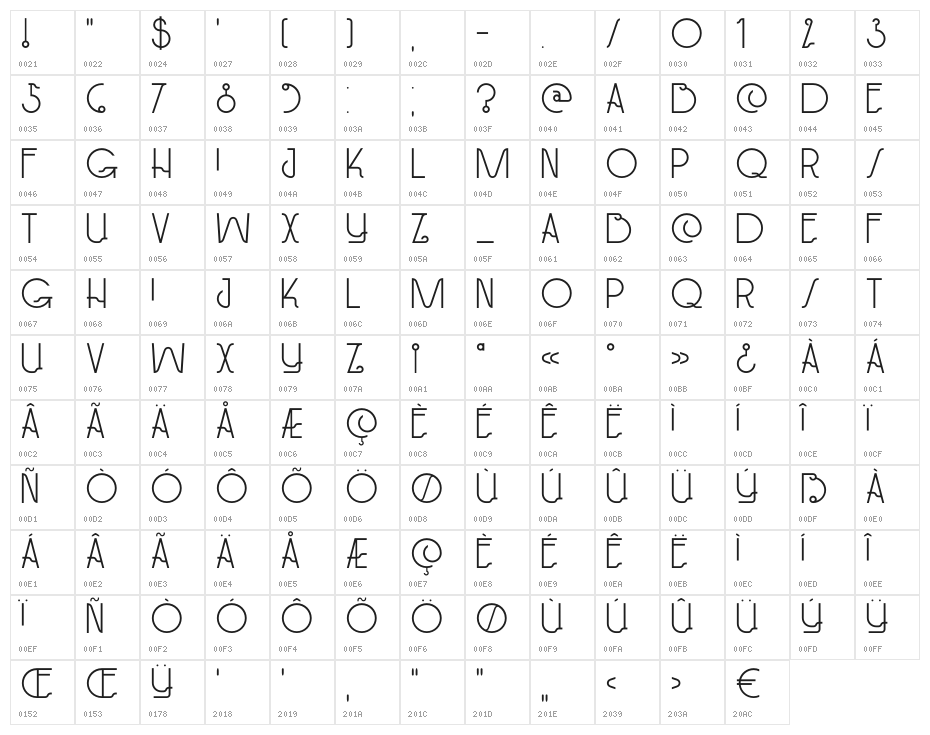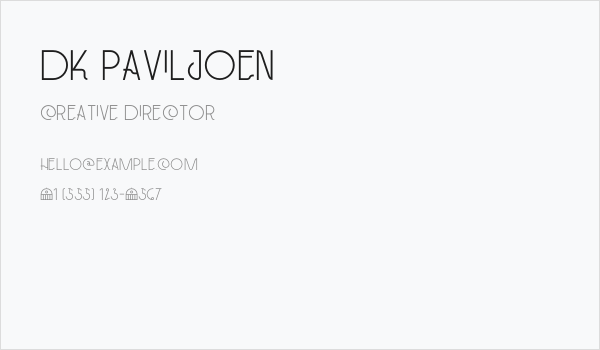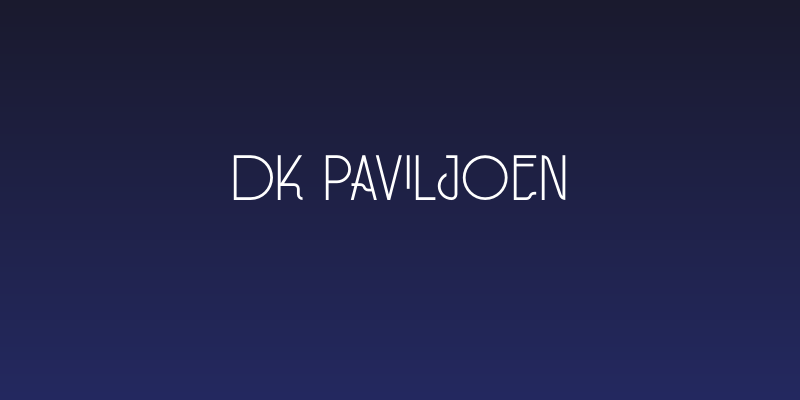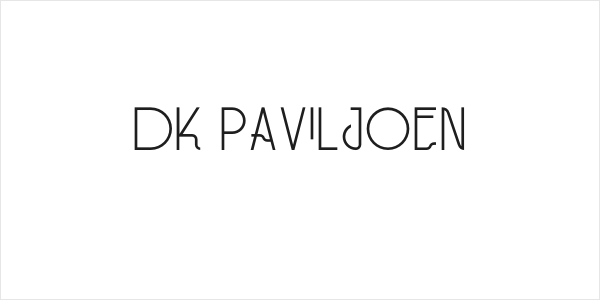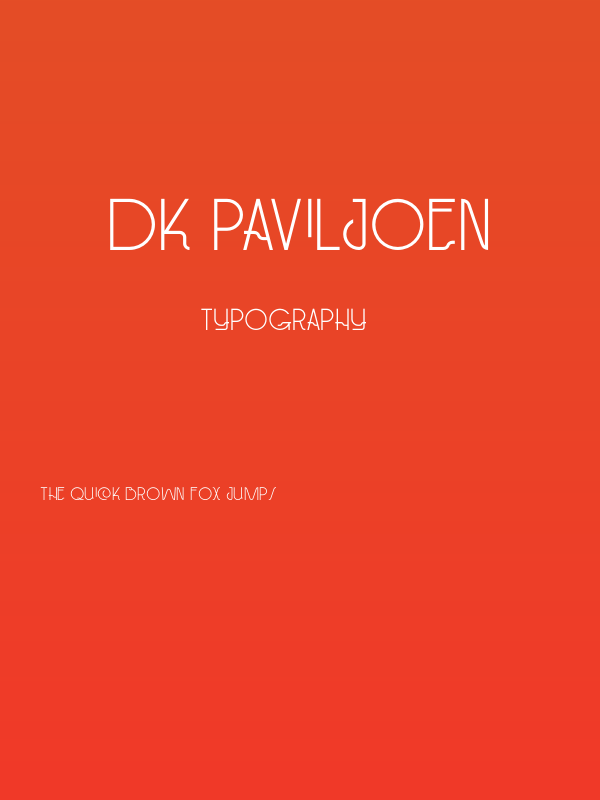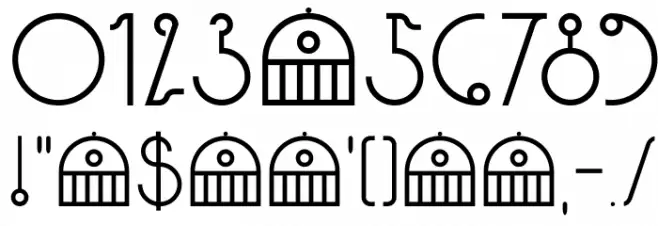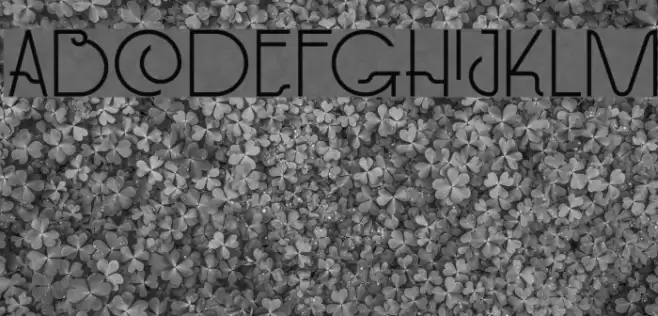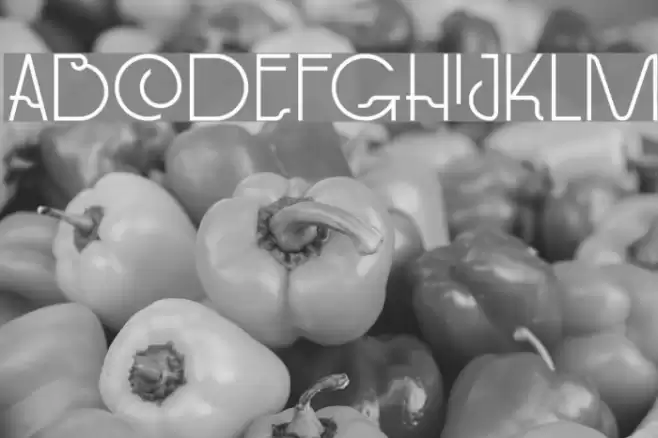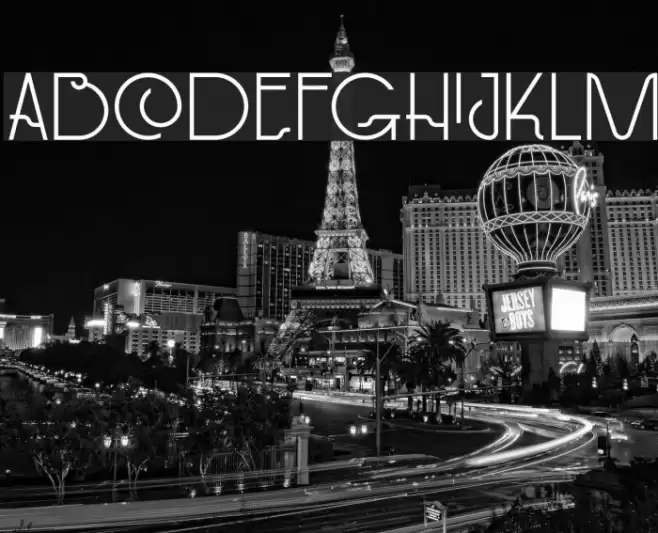
DK Paviljoen Font
DK Paviljoen Description
This font features a unique and modern design with a geometric and futuristic aesthetic. The characters are composed of clean lines and circular elements, creating a sense of movement and innovation. The uppercase and lowercase letters share a consistent style, with some characters incorporating playful loops and curves. The numerals and special characters maintain the same design principles, offering a cohesive look across all glyphs. This font stands out with its artistic flair, making it suitable for creative and contemporary projects.
| Proposed Projects | Ideal for branding, posters, album covers, and digital media projects that require a modern and artistic touch. |